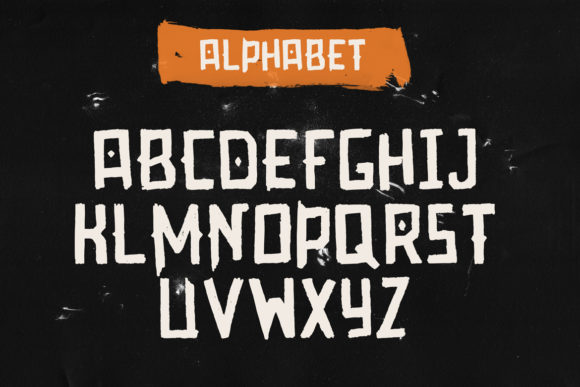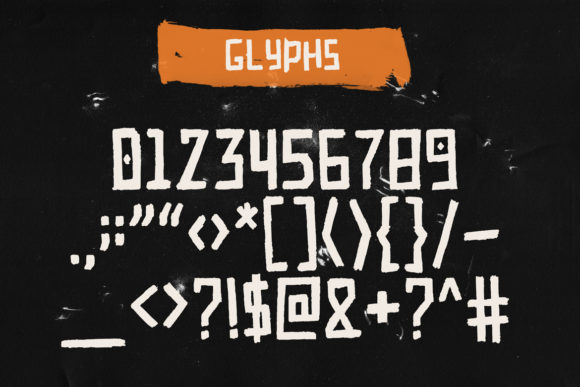
Introduction to Oak Font Font
Fonts play a crucial role in design, and the Oak Font font is a typeface that brings both character and versatility to any project. Whether you’re working on a branding project, a website, or a print design, the Oak Font font offers a unique style that can elevate your work.
Oak is a bold vintage display font.
This font looks pretty brutal and powerful like the oak itself Well suited for the design of advertising campaigns, posters for films and more.
Key Features of Oak Font Font
Why Choose Oak Font Font?
The Oak Font font is more than just a typeface – it’s a design tool that helps you communicate your message with style and clarity. Its unique character set and versatile design make it suitable for a wide range of applications, from elegant invitations to bold headlines.
With its carefully crafted letterforms and balanced proportions, the Oak Font font ensures readability and visual appeal across all mediums.
What makes Oak Font font special?
The Oak Font font stands out with its unique design, exceptional readability, and versatility across various design applications.